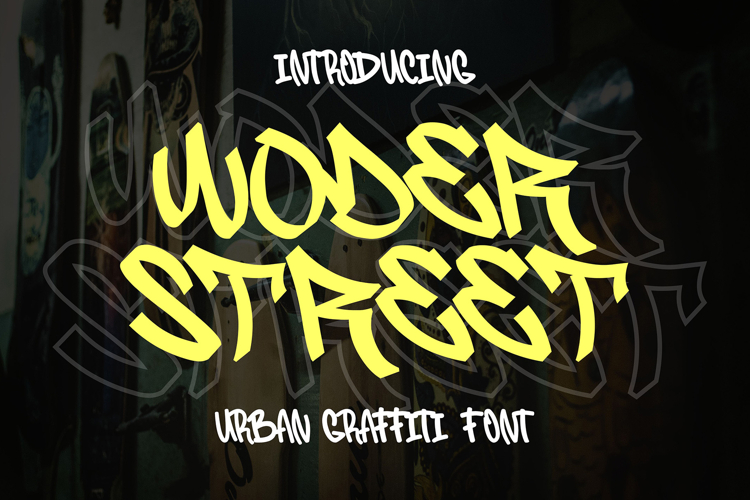
Woder Street - Urban Graffiti Font
Step into the vibrant world of urban expression with Woder Street – the graffiti font that embodies the pulse and rhythm of city life. Infused with raw energy and bold strokes, Woder Street is more than just a font – it's a gateway to the dynamic and ever-evolving culture of street art.
🎨 Urban Expression: Woder Street captures the essence of graffiti art with its expressive letterforms and intricate details. Each character pulsates with the raw energy of the streets, making it the perfect choice for posters, album covers, digital artwork, and more.
🏙️ Cityscape Inspiration: Inspired by the eclectic mix of influences found in urban environments, Woder Street infuses your designs with the vibrant energy of city life. Whether for event promotions, social media graphics, or editorial layouts, this font adds an authentic urban vibe that resonates with modern audiences.
🔥 Unleash Your Creativity: Woder Street empowers you to push the boundaries of artistic expression in diverse projects. Its bold and dynamic style commands attention and leaves a lasting impression, making it ideal for branding, signage, and digital designs that demand impact.
🌟 Youthful Appeal: Embrace the rebellious spirit of street culture with Woder Street. Its gritty urban aesthetic resonates with young, creative audiences across various industries, connecting with anyone seeking to infuse their designs with urban authenticity and attitude.
💡 Versatile Application: Woder Street is not limited to any particular niche. Its versatility allows it to shine in a multitude of projects, from editorial layouts to digital advertisements and beyond. Wherever creativity flows, Woder Street stands ready to make a bold statement.
🌆 Authentic Street Style: Whether you're an experienced graffiti artist or a design enthusiast, Woder Street offers an authentic and dynamic style that captures the spirit of urban creativity. Its expressive letterforms and intricate details bring the streets to life, making every design a masterpiece.
Transform your designs into dynamic urban masterpieces with Woder Street – where graffiti meets typography, and creativity knows no bounds. It's time to make your mark on the world with this best-selling urban graffiti font leading the way.